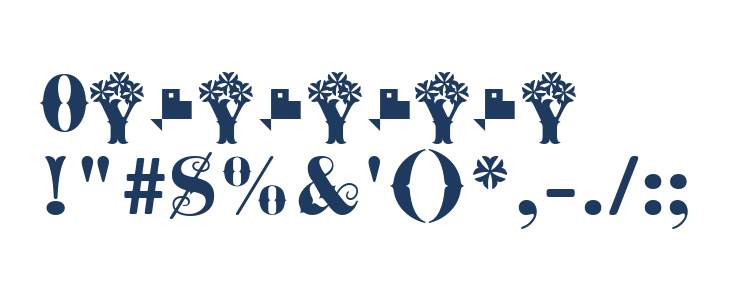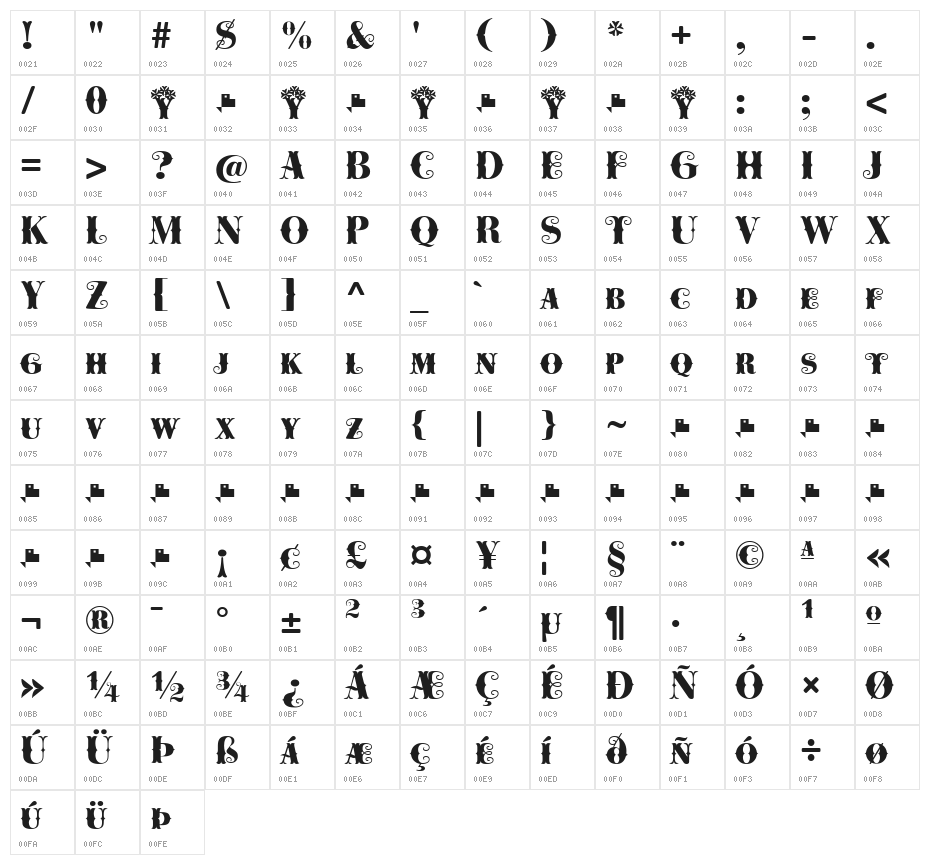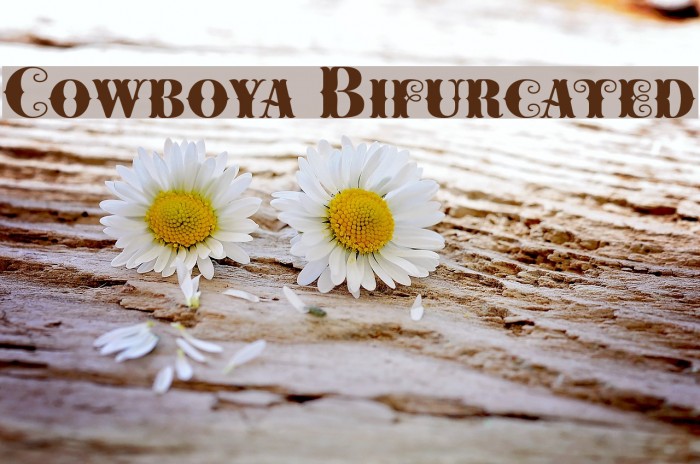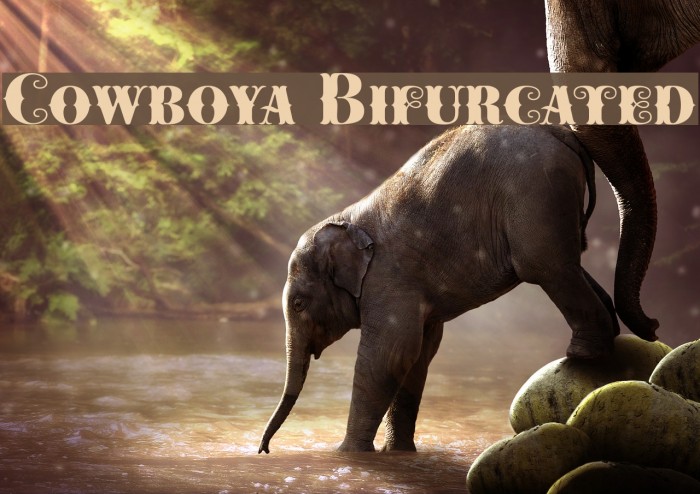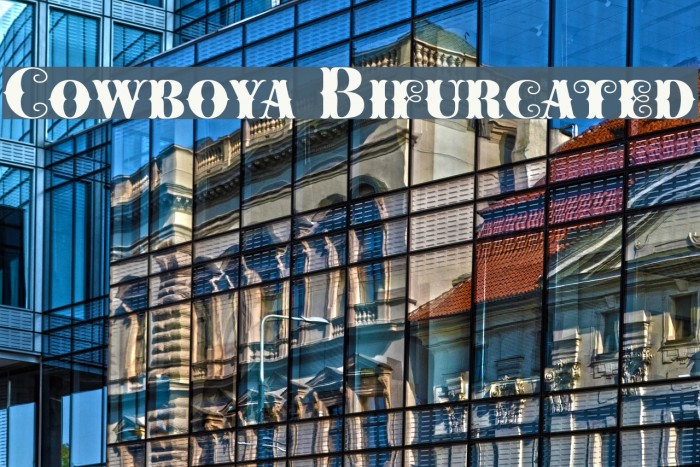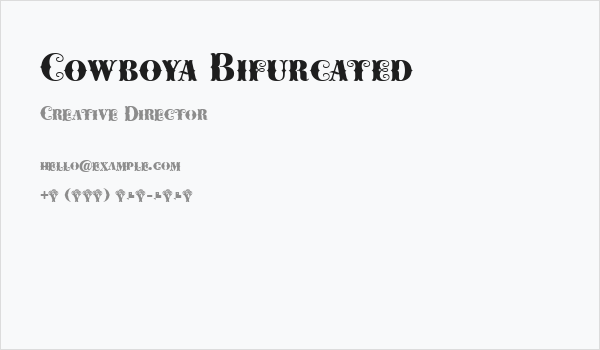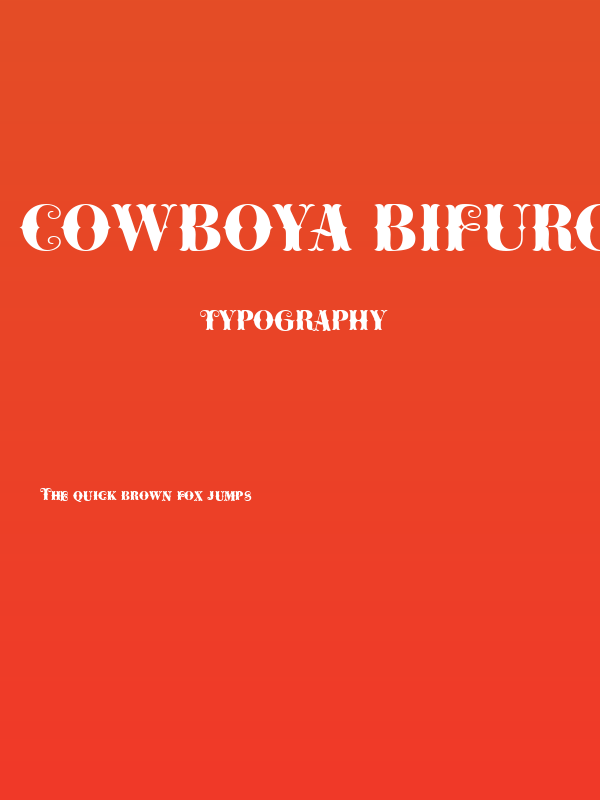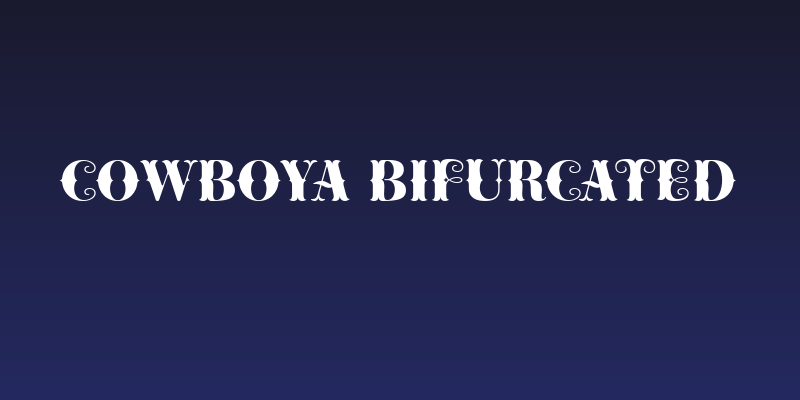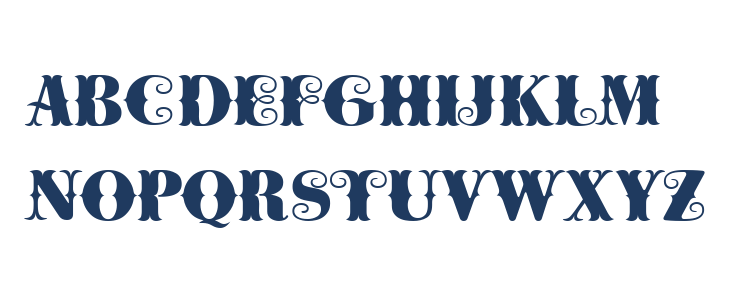
Cowboya Bifurcated Font
Cowboya Bifurcated Description
This font features a unique bifurcated style with decorative elements that give it a distinct Western flair. The uppercase letters are bold and embellished with intricate swirls and curls, creating a sense of movement and flair. The lowercase letters maintain the same decorative style, ensuring consistency across all text. Numbers and special characters are equally ornate, making them stand out in any design. The overall appearance is both bold and artistic, suitable for projects that require a touch of vintage charm and creativity.
| Proposed Projects | Ideal for Western-themed posters, vintage advertisements, logos, and creative branding projects. |